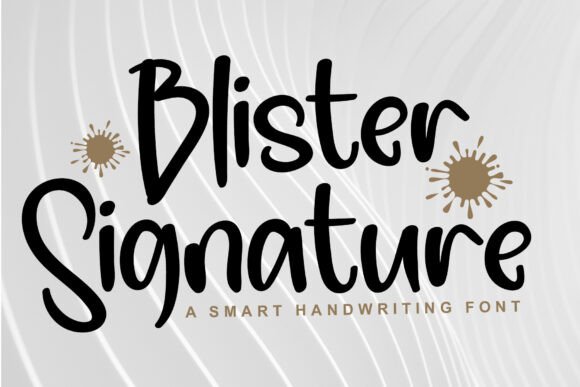
Blister Signature Font: Elevate Your Designs with Elegance and Charm
Are you looking for a font that can add a touch of sophistication and elegance to your designs? Look no further than the Blister Signature Font. This beautifully crafted handwritten script font is perfect for a variety of creative projects, from branding and invitations to logos and packaging. In this article, we’ll take a closer look at the Blister Signature Font and explore its features, benefits, and uses.
Introducing Blister Signature
Blister Signature is a stunning script font that combines fluid, natural strokes with a touch of sophistication. Its elegant and charming design makes it perfect for a wide range of applications, from romantic greeting cards to stylish packaging. Whether you’re a designer, entrepreneur, or DIY enthusiast, this font is sure to elevate your designs and add a personal touch.
Key Features of Blister Signature Font
- Handwritten Script Font: Blister Signature is a beautifully crafted handwritten script font that exudes elegance and charm.
- Fluid and Natural Strokes: The font features fluid and natural strokes that give it a personal and refined touch.
- Elegant and Sophisticated Design: Blister Signature has an elegant and sophisticated design that makes it perfect for a wide range of applications.
- Versatile and Flexible: The font is versatile and flexible, making it suitable for a variety of creative projects.
Benefits of Using Blister Signature Font
There are many benefits to using the Blister Signature Font in your designs. Here are a few:
- Adds a Personal Touch: The font adds a personal and refined touch to your designs, making them stand out from the crowd.
- Perfect for Branding: Blister Signature is perfect for branding projects, such as logos, business cards, and letterheads.
- Ideal for Invitations: The font is ideal for invitations, such as wedding invitations, birthday invitations, and graduation invitations.
- Suitable for Packaging: Blister Signature is suitable for packaging designs, such as labels, tags, and product packaging.
Uses of Blister Signature Font
Blister Signature Font can be used in a variety of creative projects, including:
- Branding and Logos: Use the font to create stunning logos, business cards, and letterheads.
- Invitations and Greeting Cards: Use the font to create romantic greeting cards, wedding invitations, and birthday invitations.
- Packaging and Labels: Use the font to create stylish packaging, labels, and tags.
- Digital and Print Media: Use the font in digital and print media, such as brochures, flyers, and posters.
Tips for Using Blister Signature Font
Here are a few tips for using the Blister Signature Font:
- Use it Sparingly: Use the font sparingly to add a touch of elegance and sophistication to your designs.
- Pair it with Other Fonts: Pair the font with other fonts to create a unique and visually appealing design.
- Experiment with Colors: Experiment with different colors to find the perfect combination for your design.
In conclusion, the Blister Signature Font is a beautifully crafted handwritten script font that exudes elegance and charm. Its fluid and natural strokes, elegant and sophisticated design, and versatility make it perfect for a wide range of creative projects. Whether you’re a designer, entrepreneur, or DIY enthusiast, this font is sure to elevate your designs and add a personal touch.